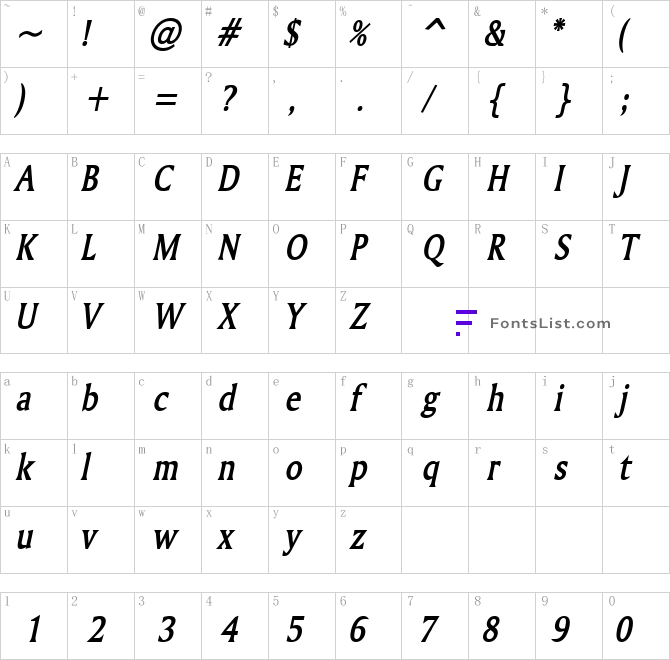
- Font Name:Ameretto-Condensed
- Subfamily:Alts:Ameretto-Condensed Bold Italic
- Full Name:Ameretto-Condensed Bold Italic
- PostScript:Ameretto-Condensed-BoldItalic
Ameretto-Condensed-Bold-Italic.ttf is a very beautiful artistic font, Ameretto-Condensed-Bold-Italic.ttf is widely used in the design and printing of various books and pictures,Ameretto-Condensed-Bold-Italic.ttf has a strong visual impact,Ameretto-Condensed-Bold-Italic.ttf is a commonly used font in newspapers, magazines and books, and is used in posters, e-commerce Poster design, store design, logo design, font design and other fields.Ameretto-Condensed-Bold-Italic.